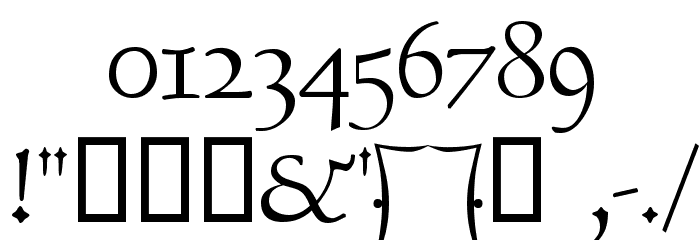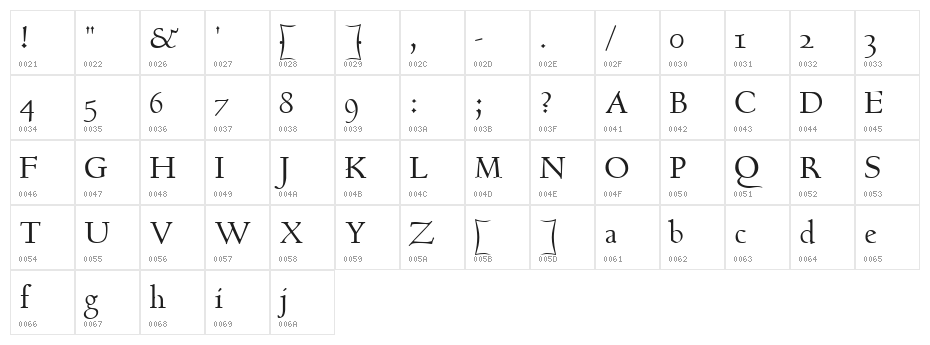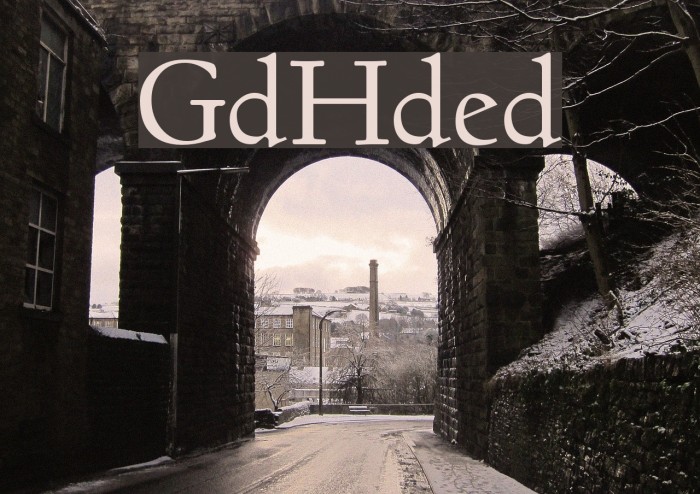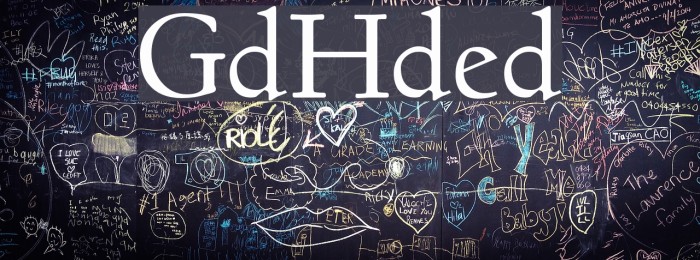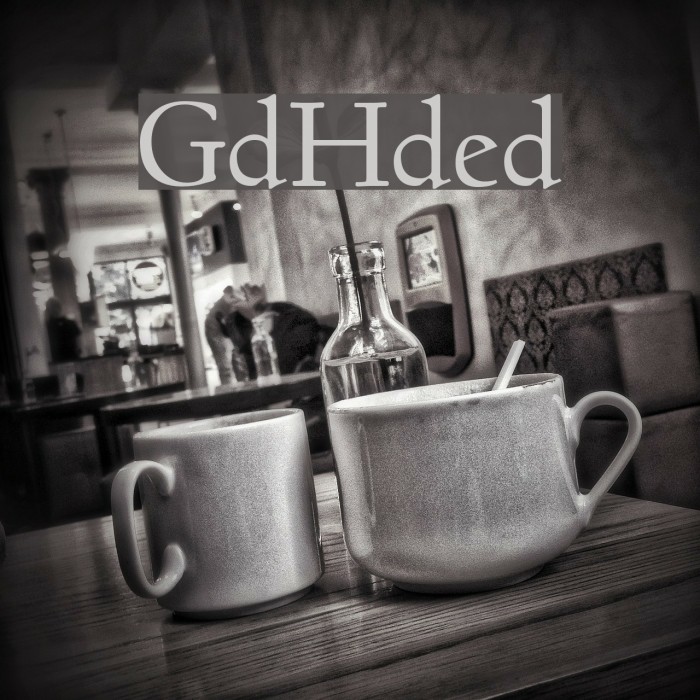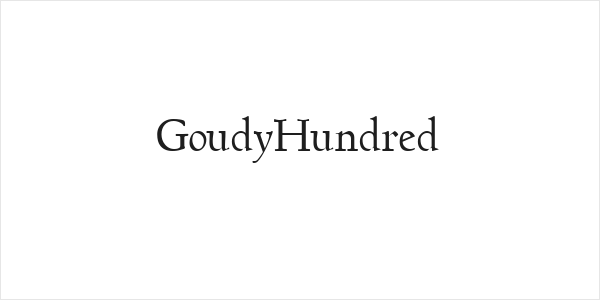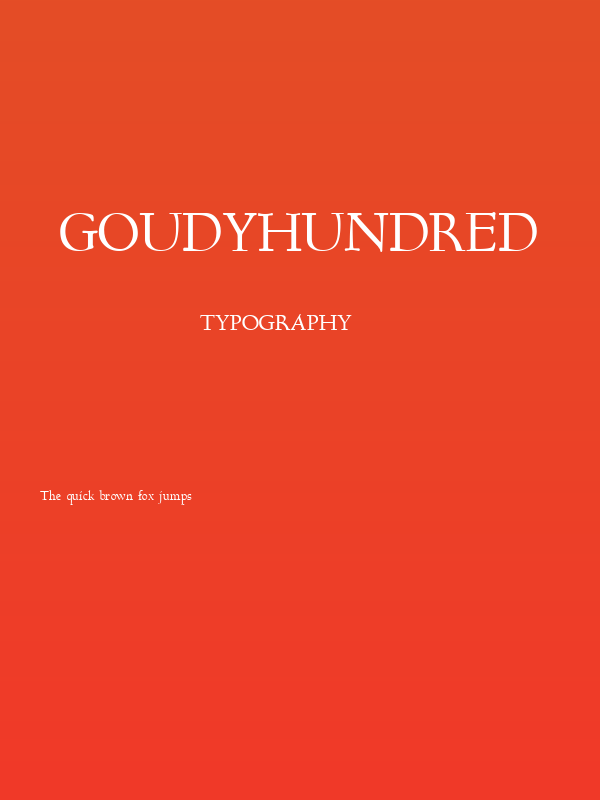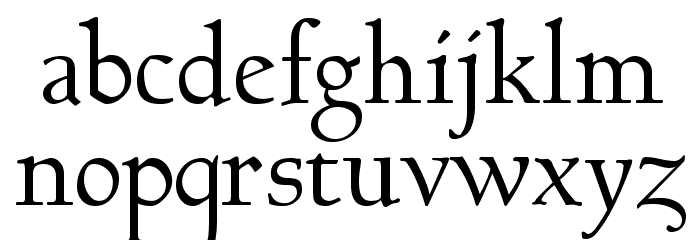
GoudyHundred Font
GoudyHundred Description
This font exhibits a classic serif style with elegant and refined strokes. The uppercase letters are bold and well-defined, featuring slight curves and sharp serifs that add a touch of sophistication. The lowercase letters maintain a consistent style, with smooth transitions and a balanced appearance. Numbers are distinct and clear, with a traditional design that complements the overall aesthetic. Special characters are thoughtfully crafted, maintaining the font's cohesive look. The font's timeless appeal makes it suitable for a variety of applications, offering both readability and style.